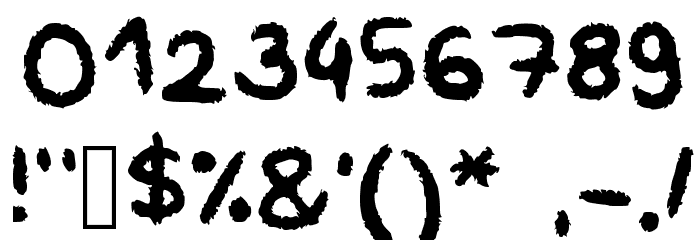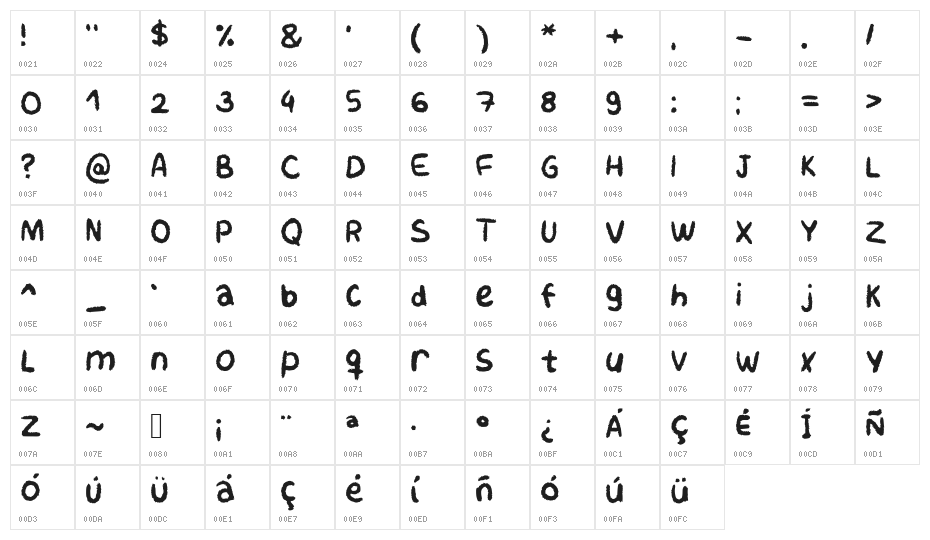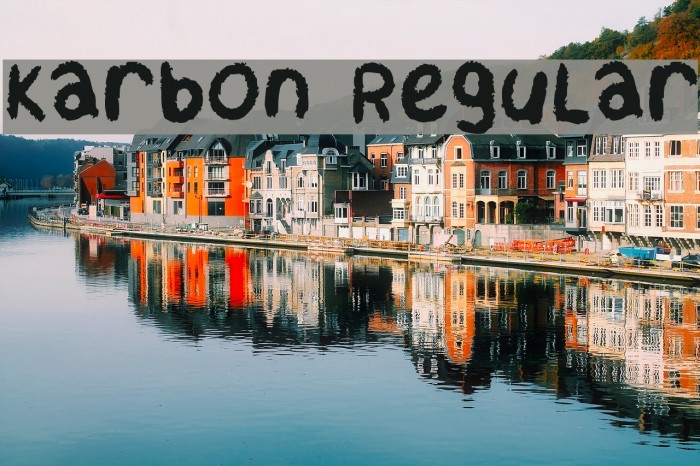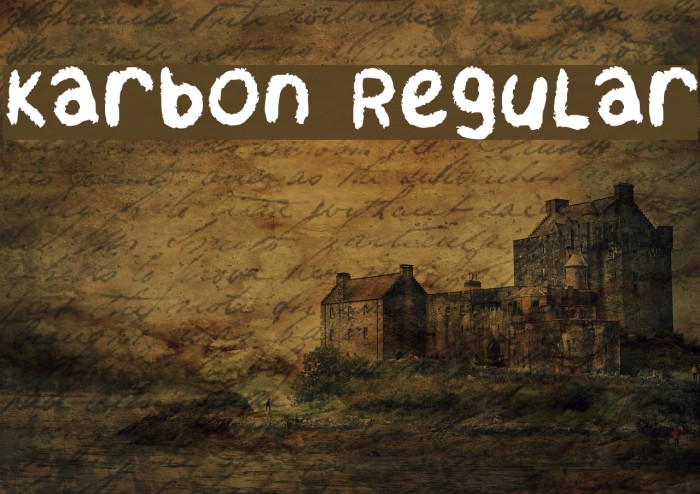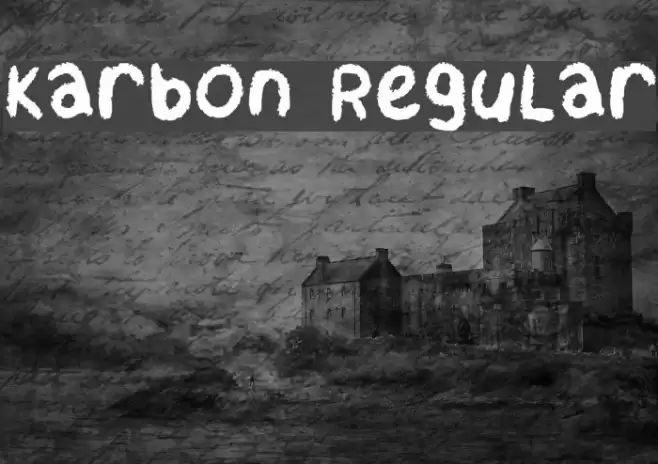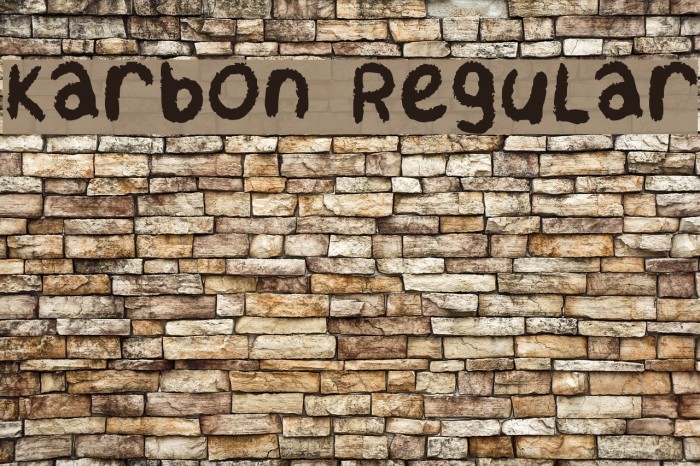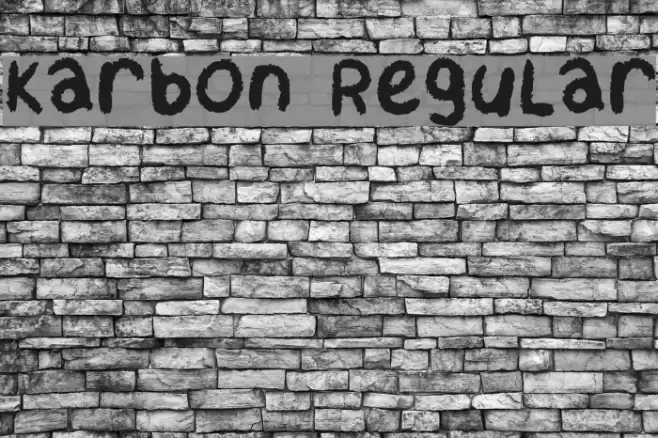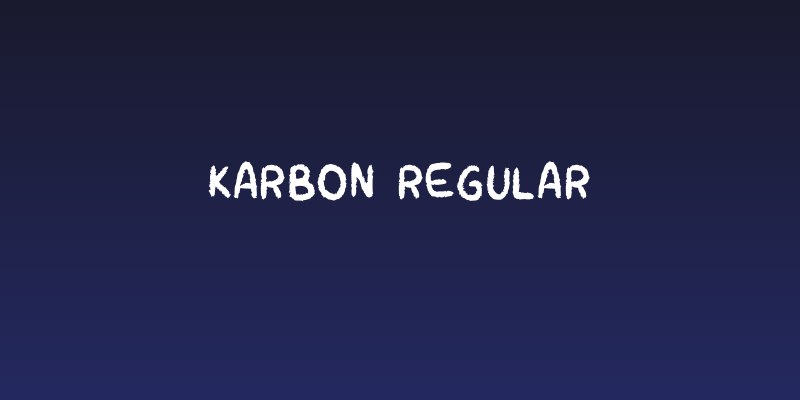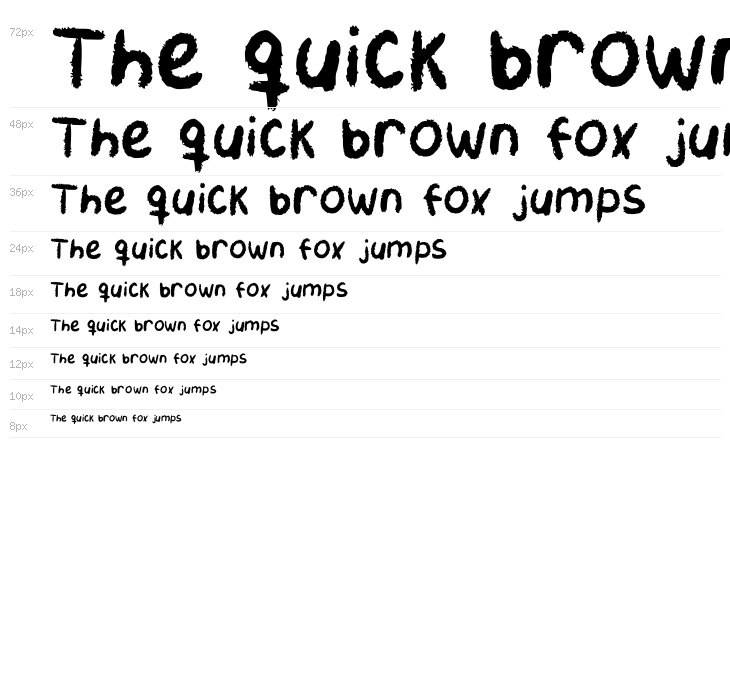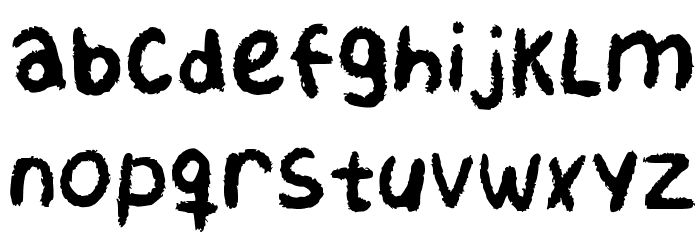
Karbon Regular Font
Karbon Regular Description
This font exhibits a bold and textured appearance, reminiscent of hand-painted or brush-stroke styles. The characters are slightly irregular, giving it a dynamic and organic feel. The uppercase and lowercase letters maintain a consistent style, with rounded edges and a playful, informal look. The numbers and special characters follow the same aesthetic, ensuring uniformity across all glyphs. This font's unique texture and bold presence make it stand out, suitable for creative and artistic projects.
| Proposed Projects | Ideal for posters, artistic designs, branding, and creative projects that require a bold and dynamic typeface. |